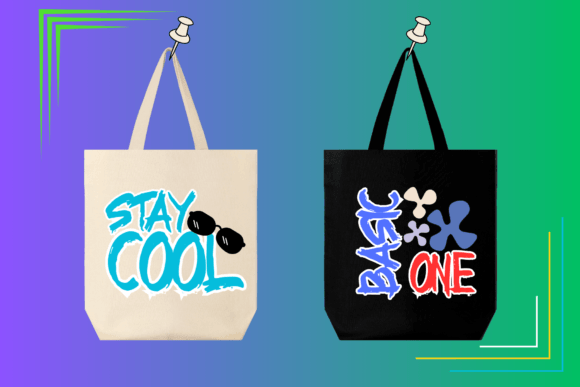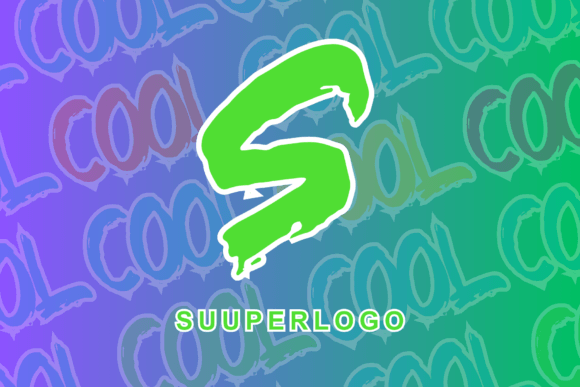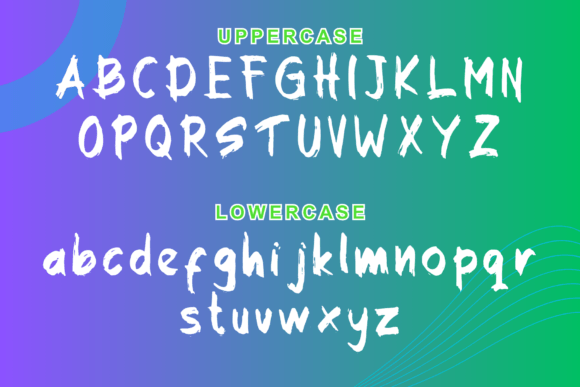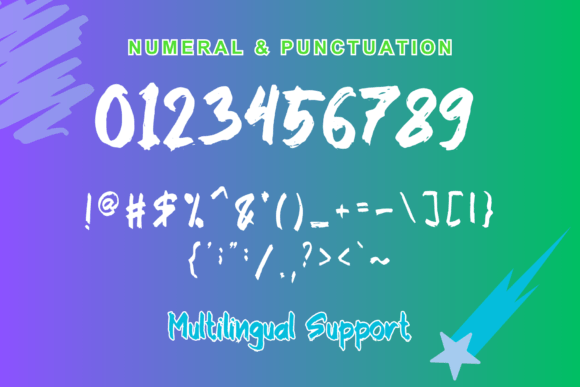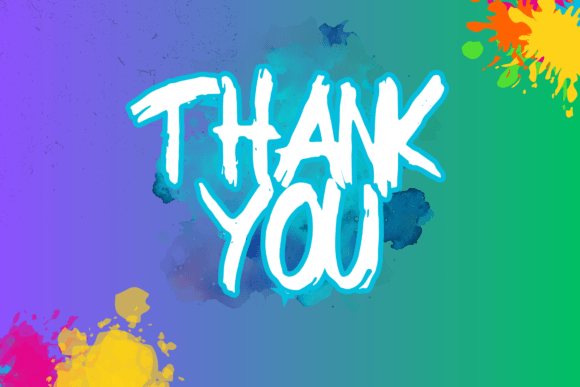
Introduction to Ink Streak Font
It is introducing the one-of-a-kindigned to inject an innovative, relaxed, and bespoke vibe into your designs.
Harness its power to craft uniquely dynamic and organic visuals perfect for various design purposes This attractively versatile font stands out as an exceptional choice for a multitude of applications, from creating eye-catching logos, compelling posters, and heartwarming greeting cards, to imaginative mockup t-shirts.
Key Features of Ink Streak Font
Why Choose Ink Streak Font?
Ink Streak Font offers exceptional quality and versatility, making it a valuable addition to your design toolkit. Whether you’re creating for personal projects or commercial use, Ink Streak Font delivers professional results.